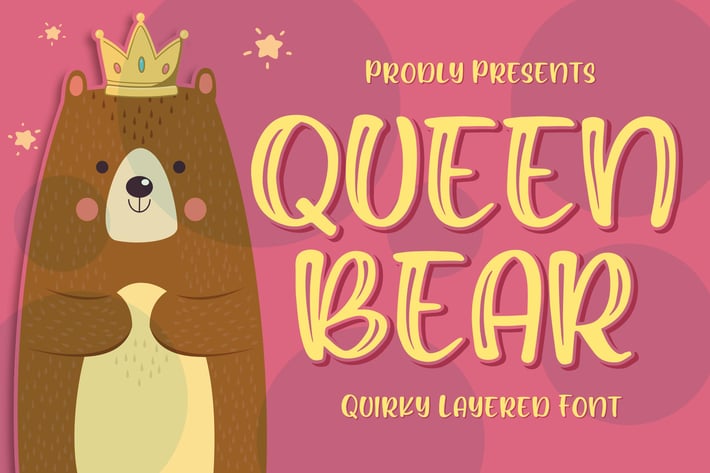
Queen Bear - Quirky Layered Font
Introducing of our new product the name is Queen Bear Quirky Layered Font. Queen Bear inspired by modern calligraphy this font is a fun theme very good for kids, comic, food logo, food menu, wedding invitation, logotype and etc